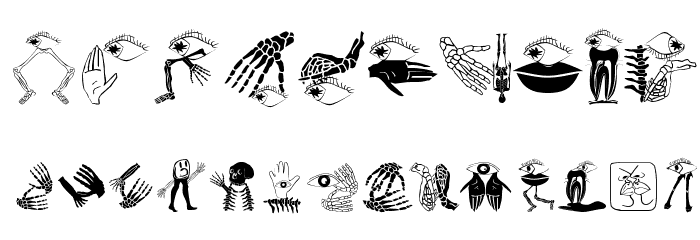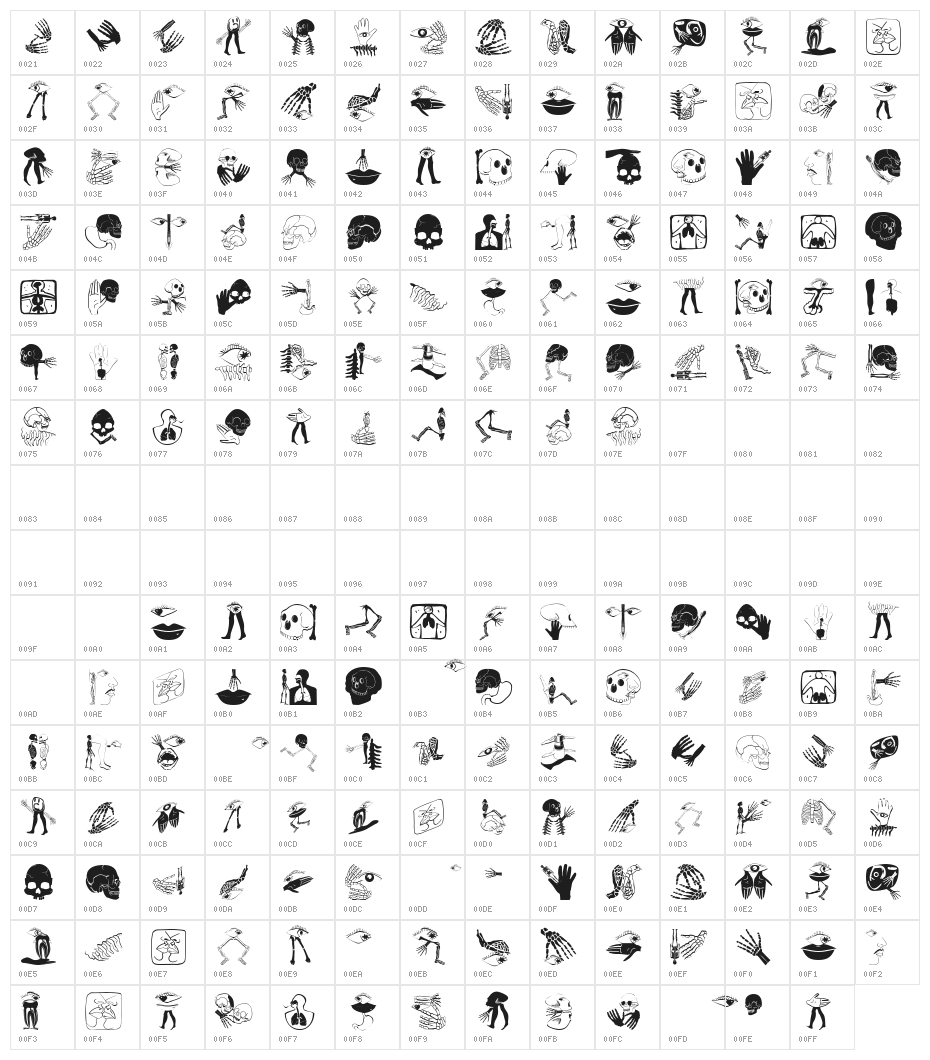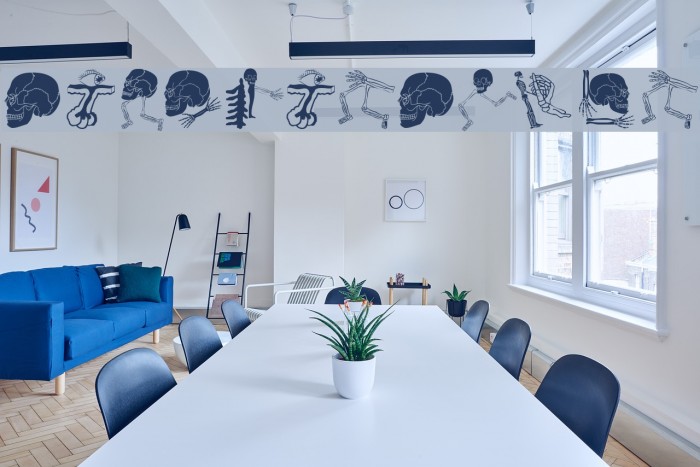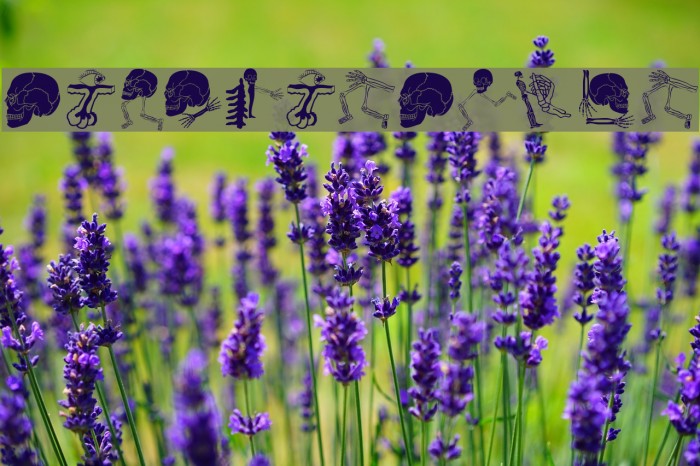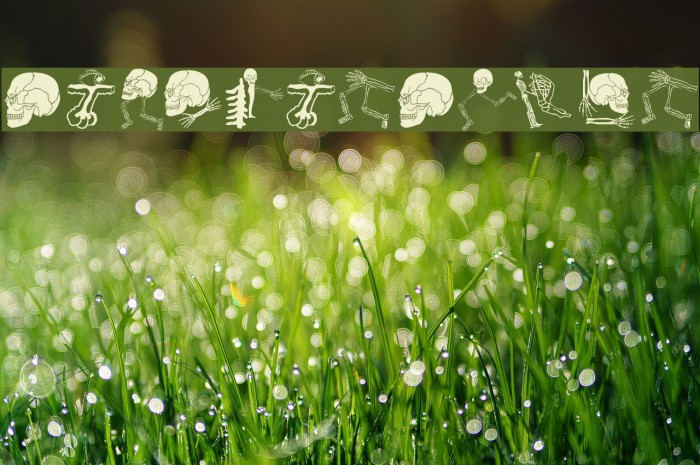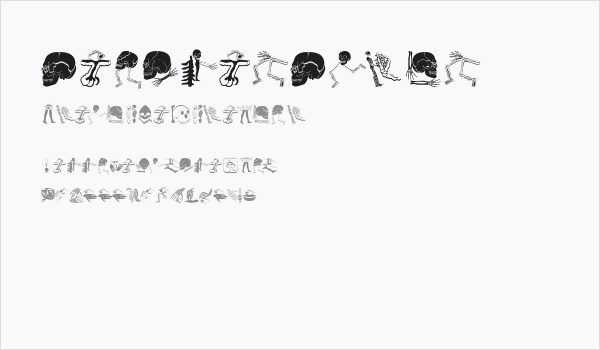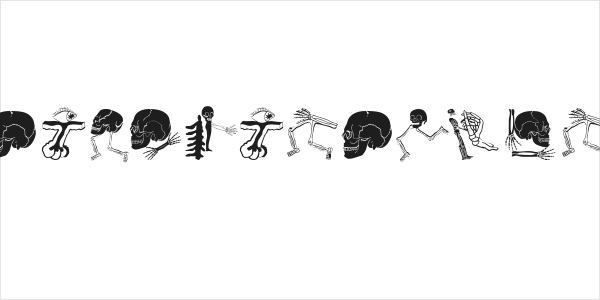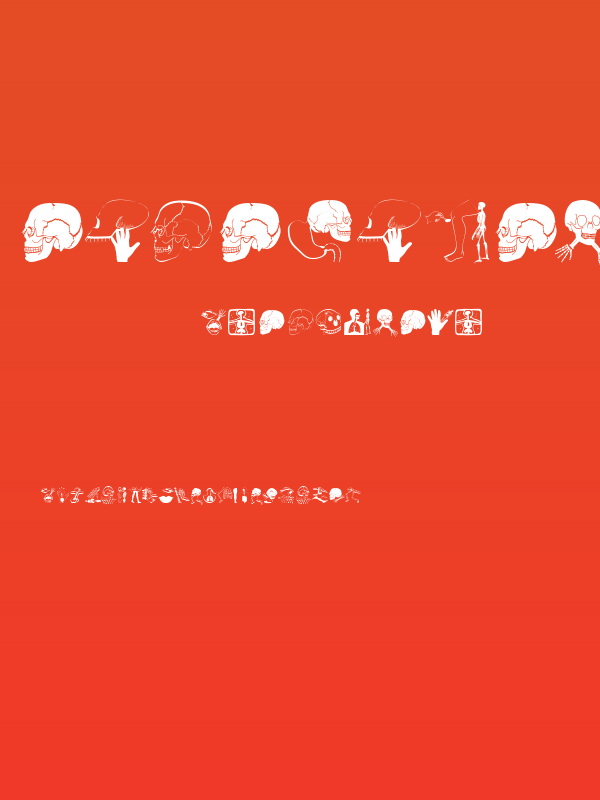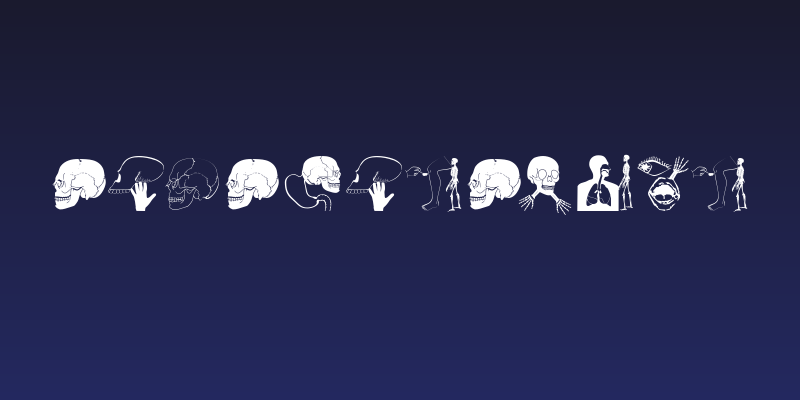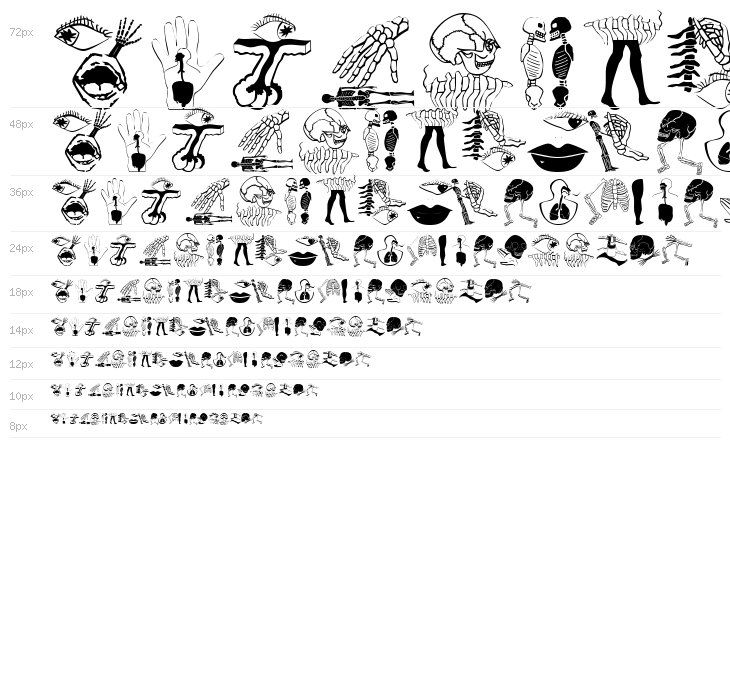
PeoplesParts Font
PeoplesParts Description
A highly decorative and illustrative font composed of quirky, hand-drawn anatomical elements such as bones, skulls, eyes, hands, and other body parts, each character uniquely crafted with playful and surreal details.
| Overall Style | Decorative, Whimsical, Surreal |
| Use Case | Headlines, Logos, Posters, Artistic projects |
| Proposed Projects | Poster art, album covers, Halloween invitations, alternative comics, experimental branding, educational materials for anatomy. |